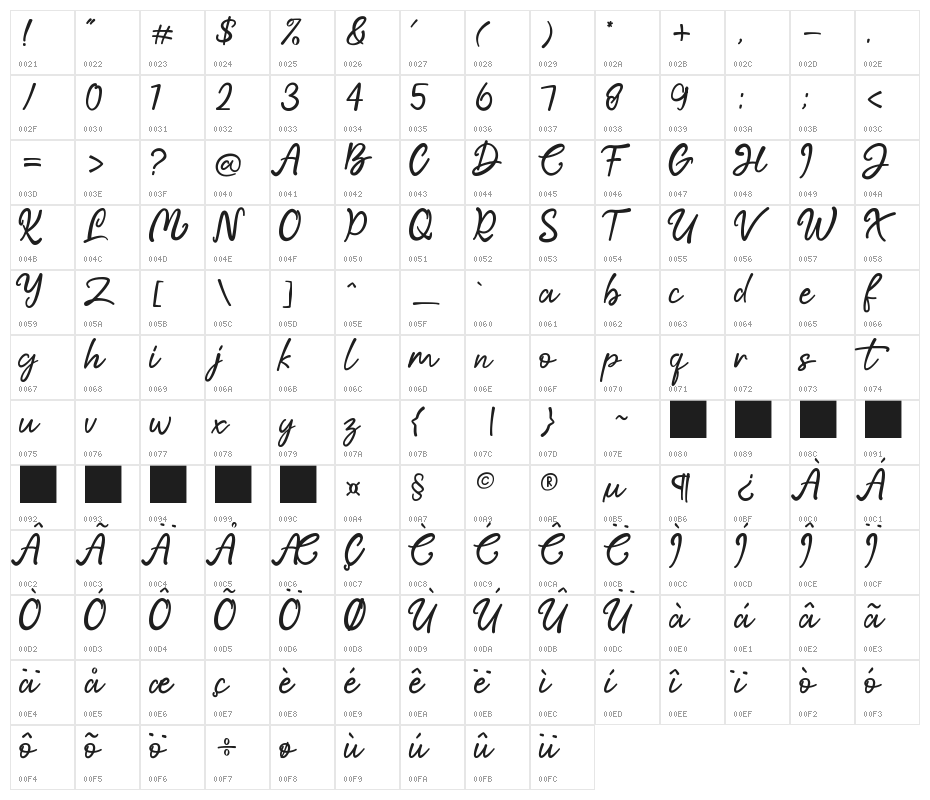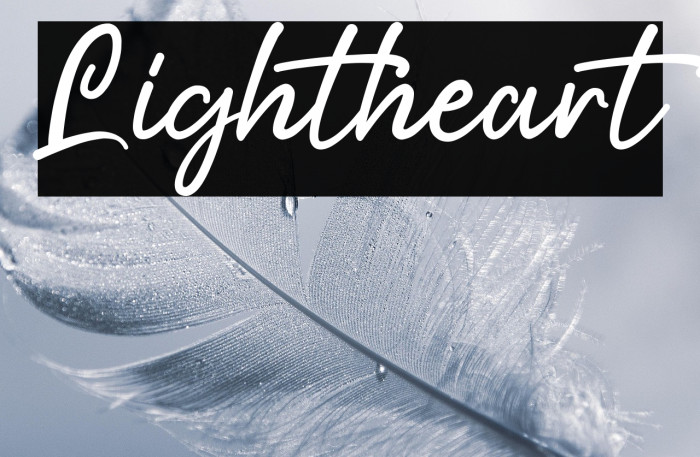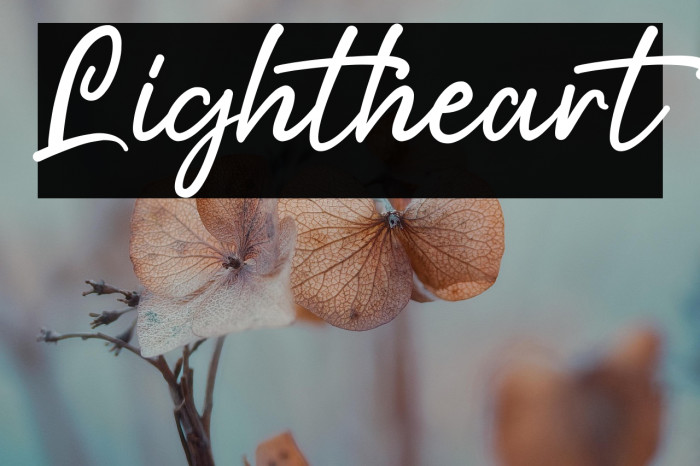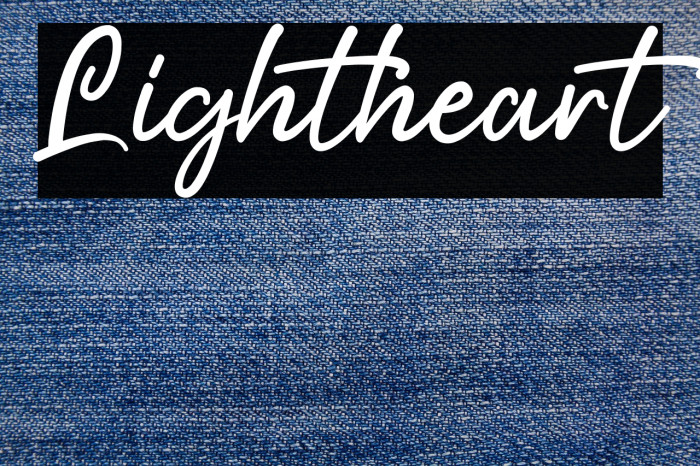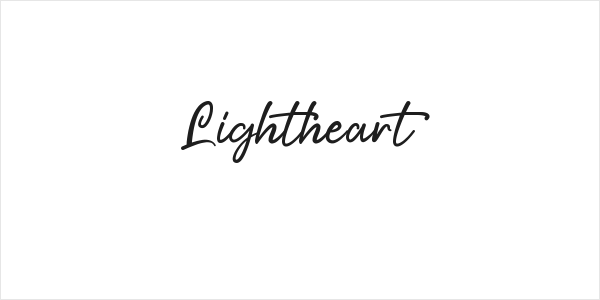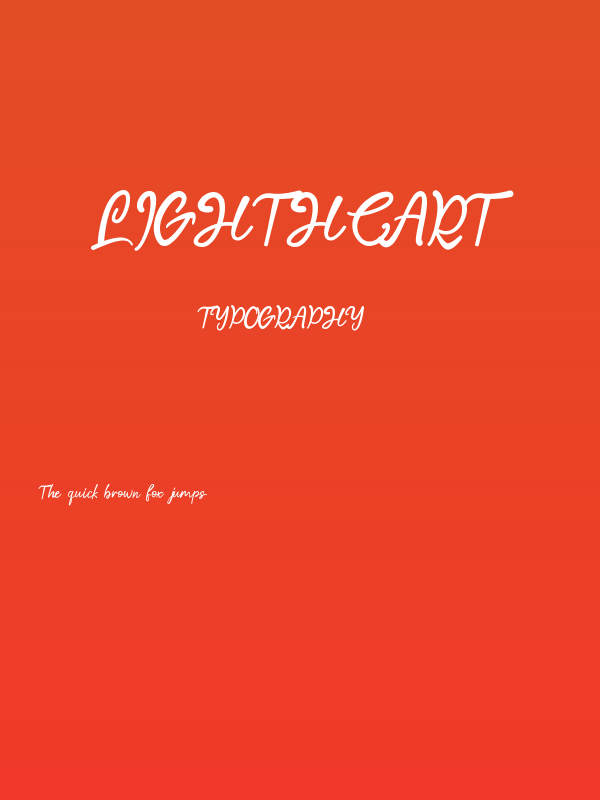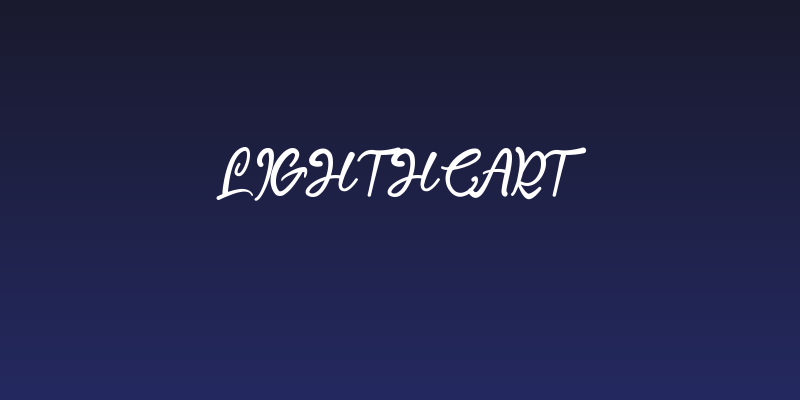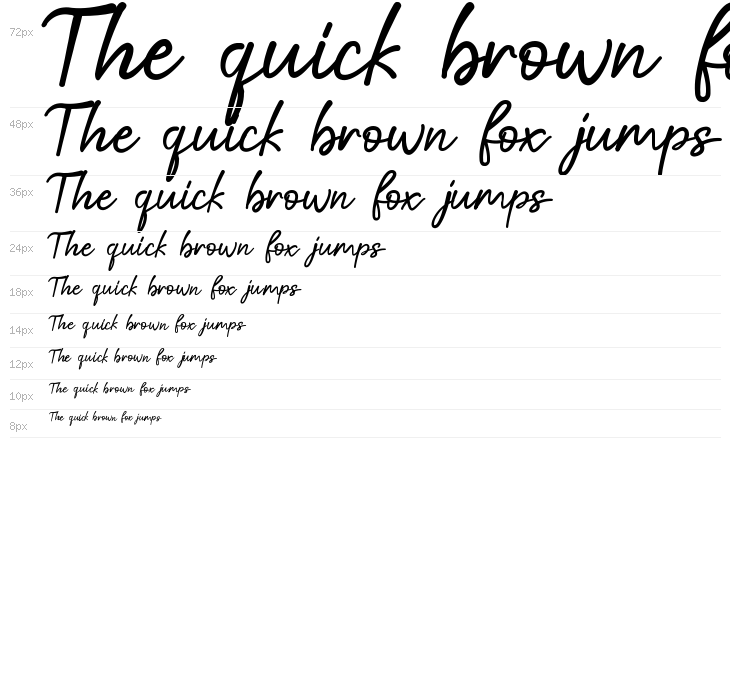
Lightheart Font
Lightheart Description
This font exudes a playful and energetic vibe with its fluid, cursive style. The letters are interconnected, creating a seamless flow that mimics natural handwriting. The strokes are bold and confident, with a consistent thickness that maintains readability while adding a touch of elegance. The uppercase letters stand tall with a slight slant, while the lowercase letters are more compact, enhancing the overall dynamic appearance. Numbers and special characters are crafted with the same attention to detail, ensuring uniformity across all elements. This font is perfect for projects that require a personal touch, such as invitations, greeting cards, or branding materials.